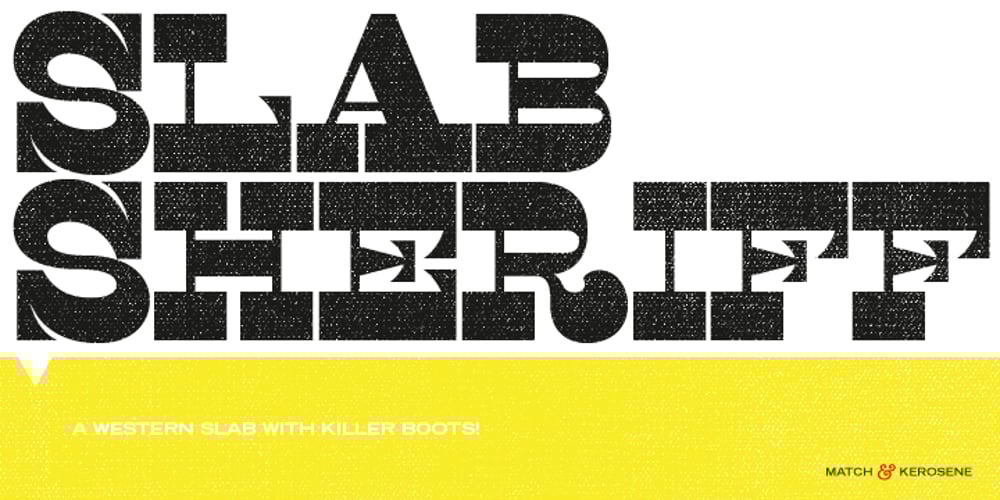
Slab Sheriff Font Family was designed by Alex Sheldon and published by Match & Kerosene. Slab Sheriff contains 1 styles and family package options. Match and Kerosene is proud to present its debut font, Slab Sheriff. The design was inspired by Caslon’s Italian type work from the early 1800s and a general love for western and heavy slab serif fonts. Slab Sheriff is an all-caps font, but there are display options easily accessed in any program using the lowercase glyphs. There are 2 ampersands as well; one of which can be accessed in the Stylistic Alternate OpenType Feature.